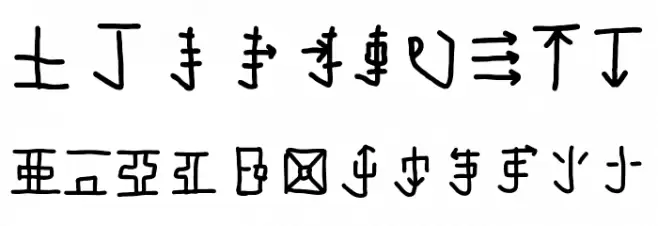
mantrakshar J Font
mantrakshar J Description
This font features a unique and playful design, characterized by its hand-drawn appearance and irregular strokes. The letters have a whimsical and organic feel, with varying line thicknesses that give it a casual and informal look. The uppercase and lowercase letters maintain a consistent style, with rounded edges and a slightly uneven baseline, adding to its charm. The numerals and special characters follow the same playful aesthetic, making it suitable for creative and artistic projects.
A playful, hand-drawn font with irregular strokes and a whimsical style from Uncategorized fonts.
- Proposed Projects: Ideal for children's books, creative posters, greeting cards, and artistic branding.